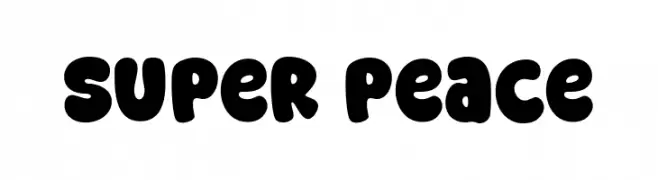
( Fonts by DaeDesign )
A bold, geometric font with a modern, industrial style.
( Fonts by MJType )
A bold, playful font with rounded, thick strokes and a friendly appearance.
A bold, vintage-inspired font with thick, block-like characters ideal for headlines.
( Fonts by Hendra Pratama )
A bold, textured font with a vintage, distressed appearance.
( Fonts by Glen Nyundu )
A bold, geometric font with sharp, angular edges and a modern industrial feel.
( Fonts by fsuarez913 )
A playful, bold font with rounded, bubbly characters ideal for fun and approachable designs.
( Fonts by Edignwn Type )
A bold, distressed font with a textured, vintage stamp-like appearance.
( Fonts by Douglas Vitkauskas )
A distressed, grunge-style font with a bold and textured appearance.